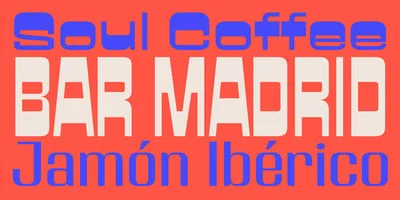
Variex Font
Variex Font is perfect for dynamic brand identity systems, adaptive web design interfaces, responsive mobile applications, variable typography campaigns, flexible design solutions, multi-platform presentations, scalable logo designs, interactive digital experiences, progressive design studios, innovative tech companies, and any project that requires versatile adaptability character with modern variable sophistication.
What makes Variex Font exciting is its revolutionary variable font technology that enables seamless adaptation across multiple weights and styles through advanced typographic engineering that captures the essence of contemporary design flexibility and digital innovation. This adaptive typeface features smooth interpolation characteristics with variable precision that convey technological advancement and design system sophistication. The font's variable character adds instant modern credibility and tech-forward appeal to any design, making it perfect for brands embracing cutting-edge typography and responsive design excellence.
Variex Font comes in multiple font families including Regular, Bold, Light, Condensed, Extended, and Variable variations, offering designers comprehensive options to create adaptive compositions and achieve the perfect flexible aesthetic for technology-focused design projects.
Whether you're developing responsive brand identity, creating adaptive digital interfaces, or designing variable typography campaigns, Variex Font provides the ideal solution for projects demanding authentic variable character and modern technological sophistication. This innovative typeface excels in both static and dynamic applications where adaptability presence is essential, ensuring your designs communicate technological advancement and design flexibility values. The adaptive character and variable styling of Variex Font make it an indispensable tool for designers who prioritize variable typography, responsive design, and cutting-edge technological innovation in their typographic selections.